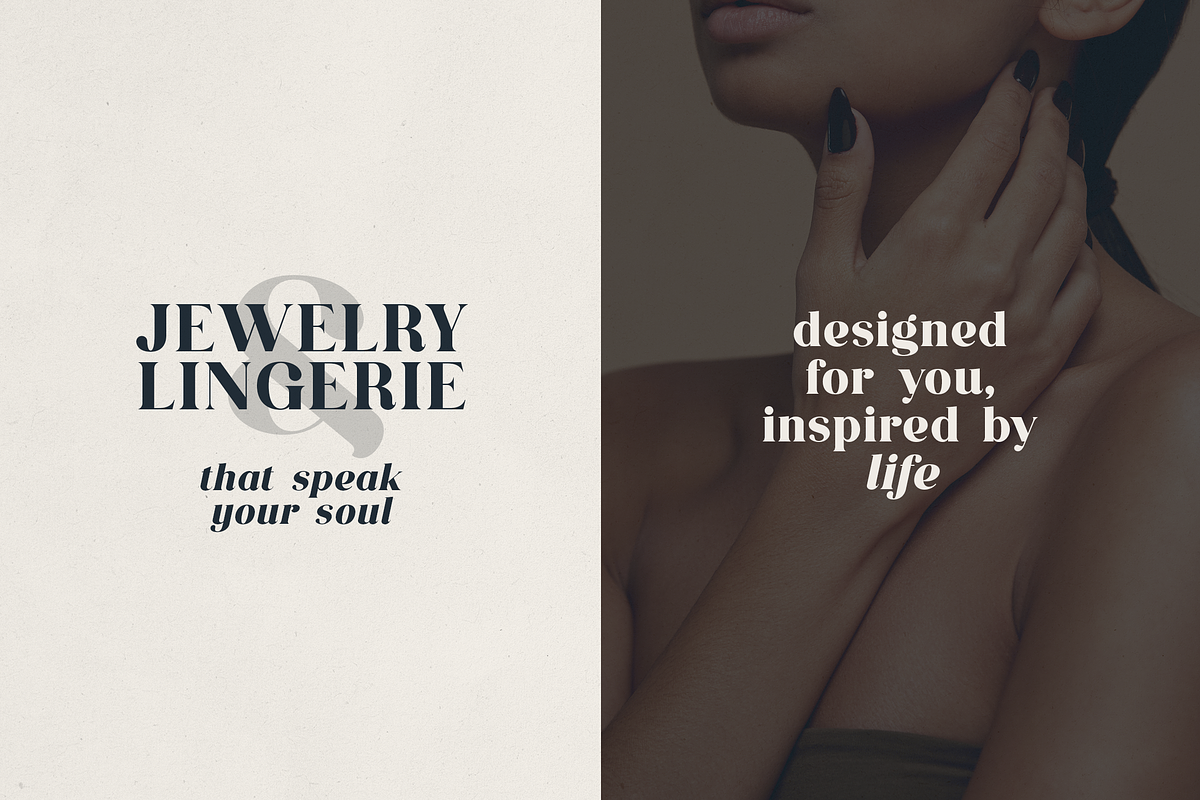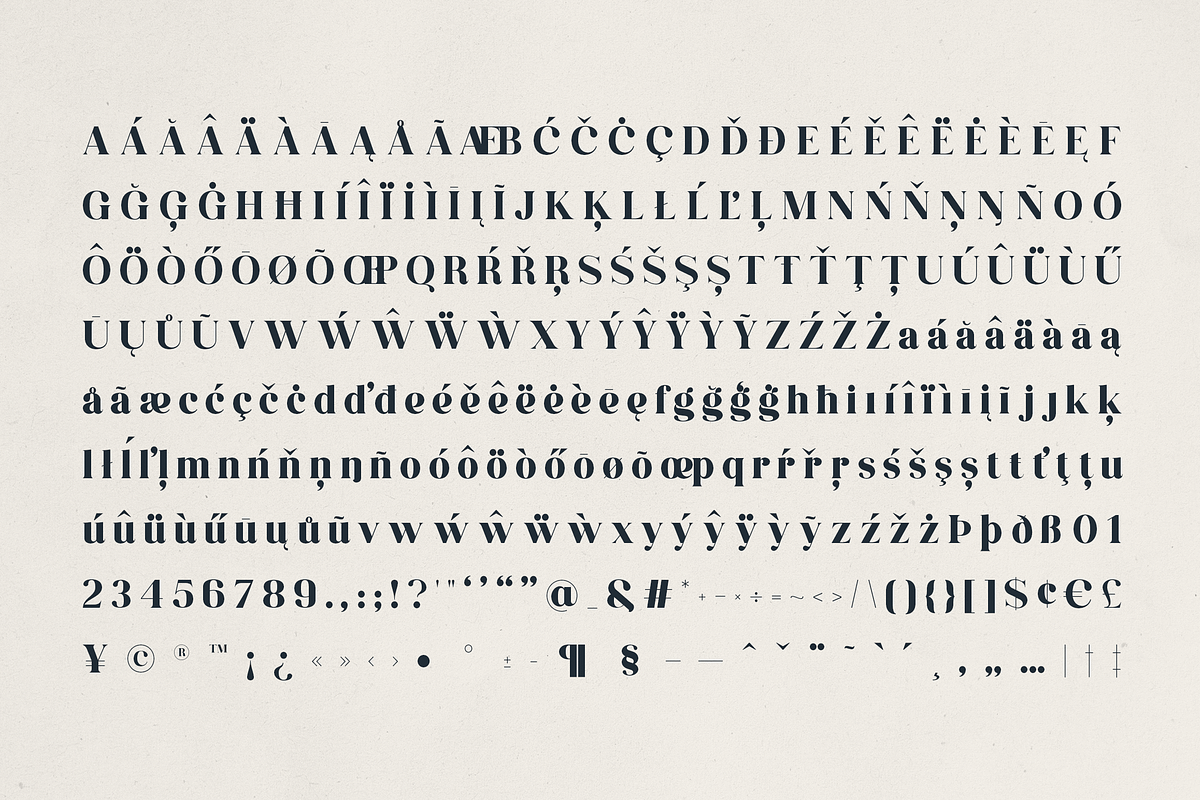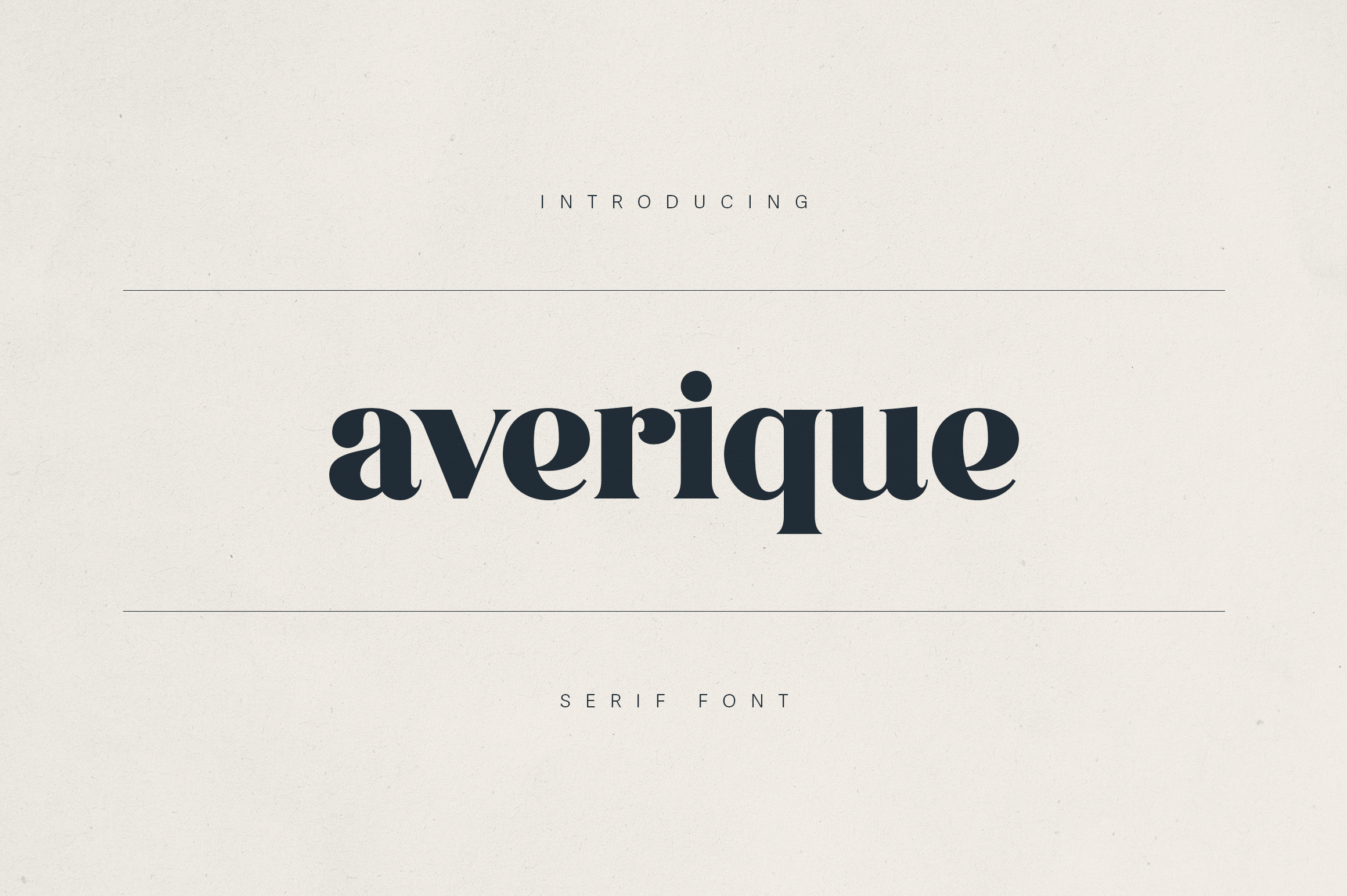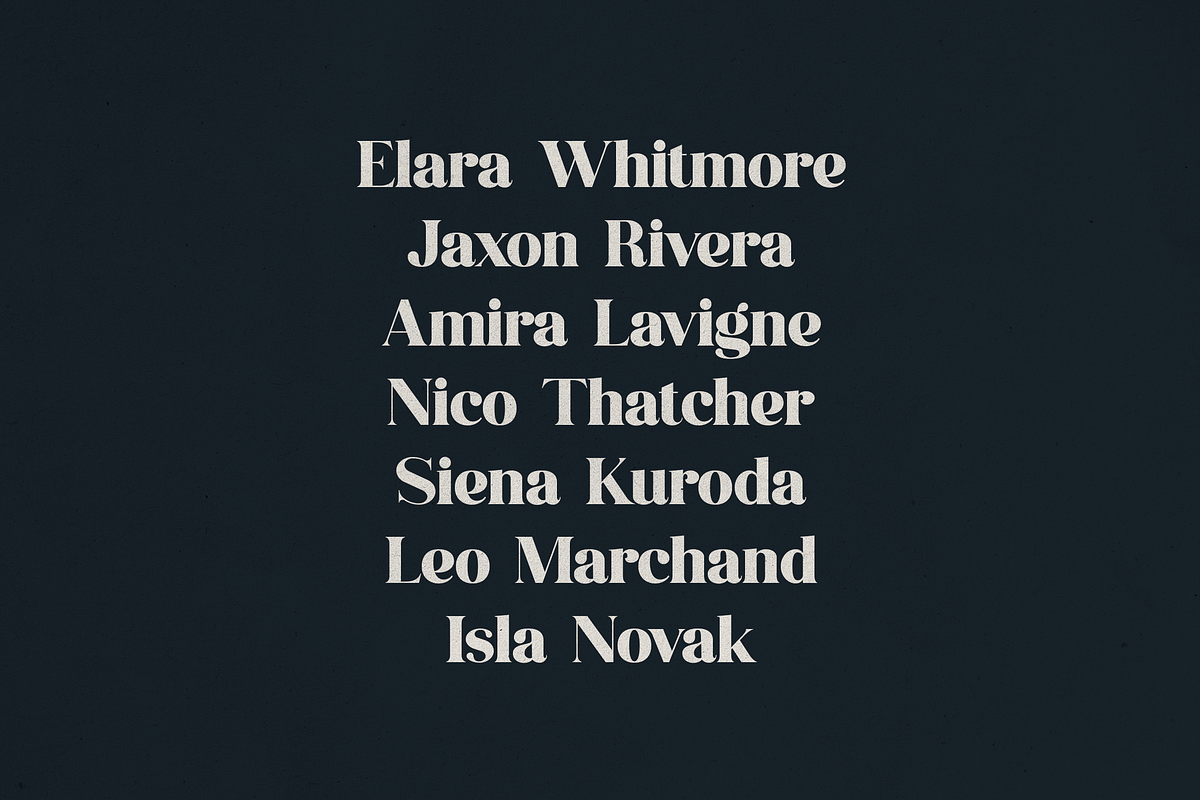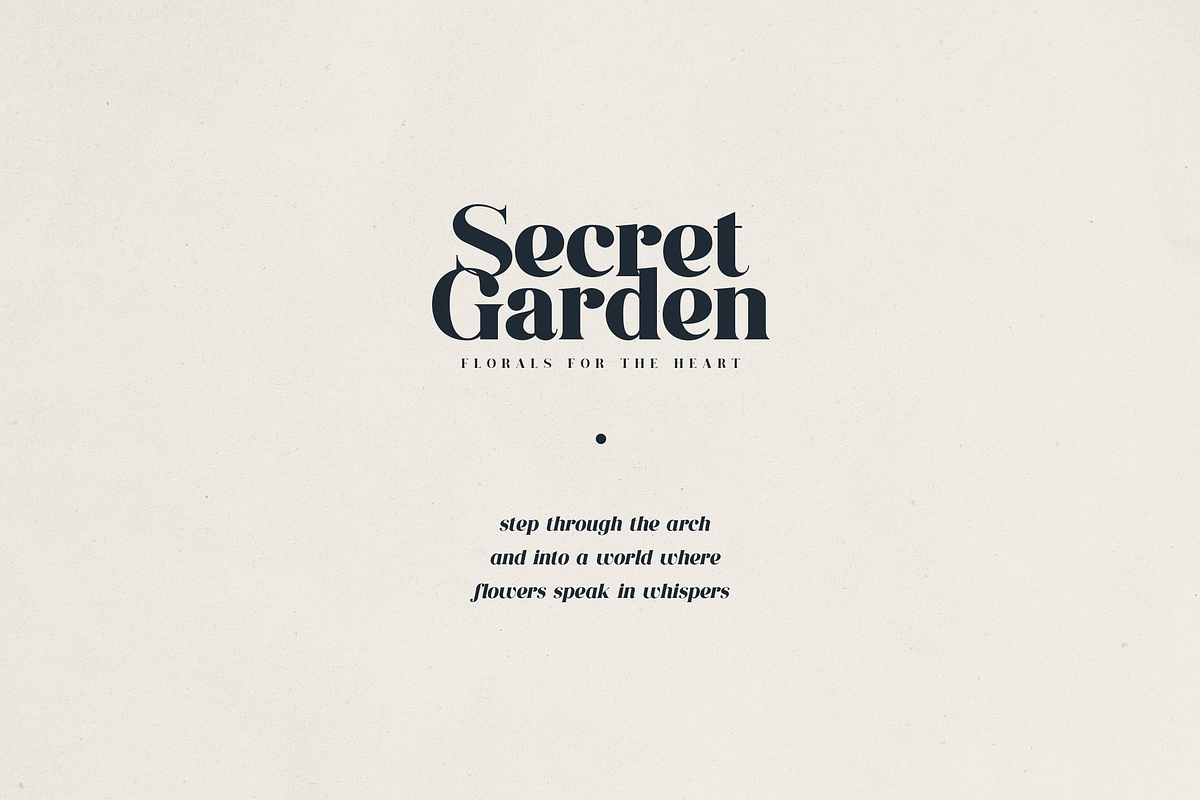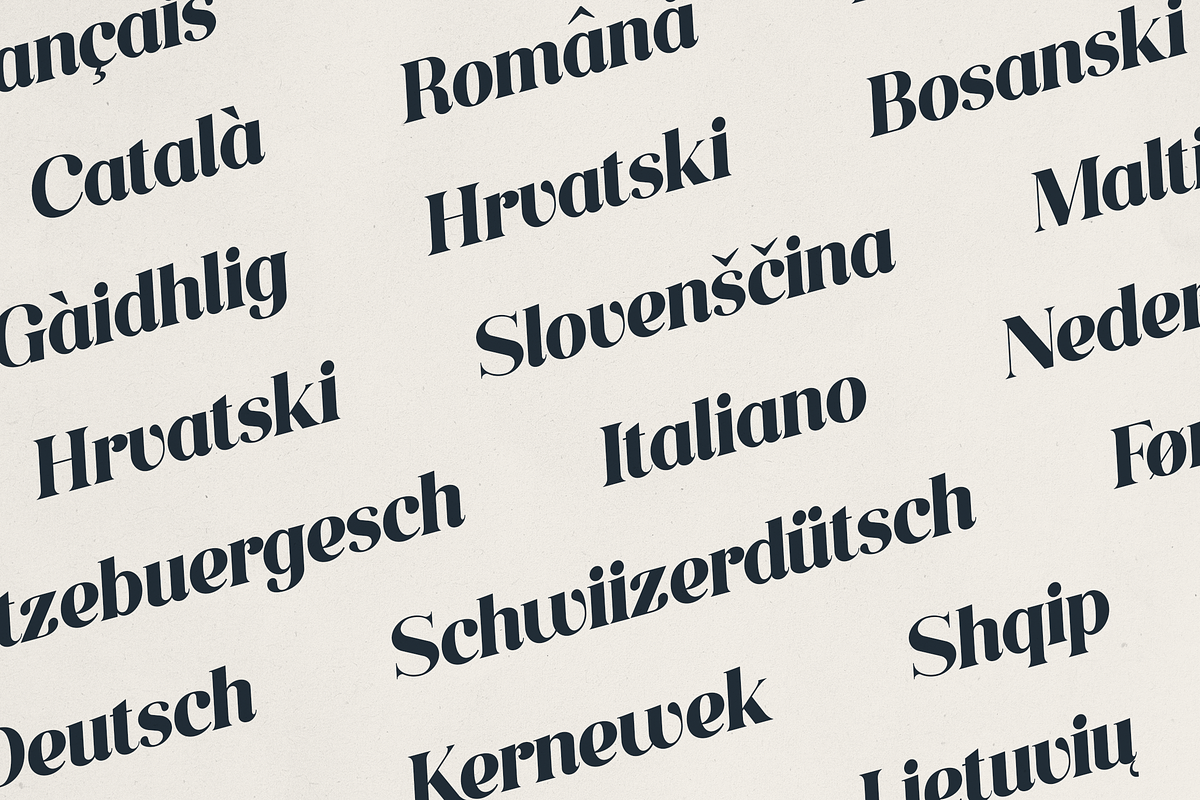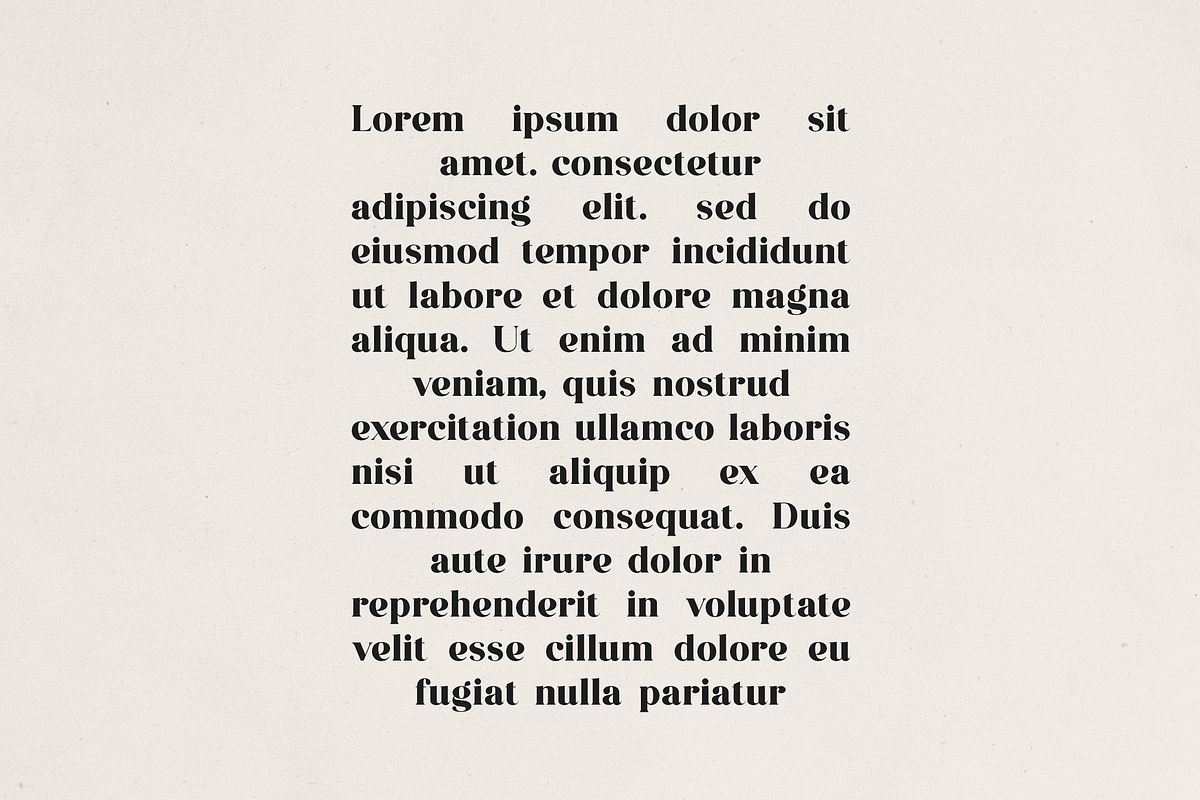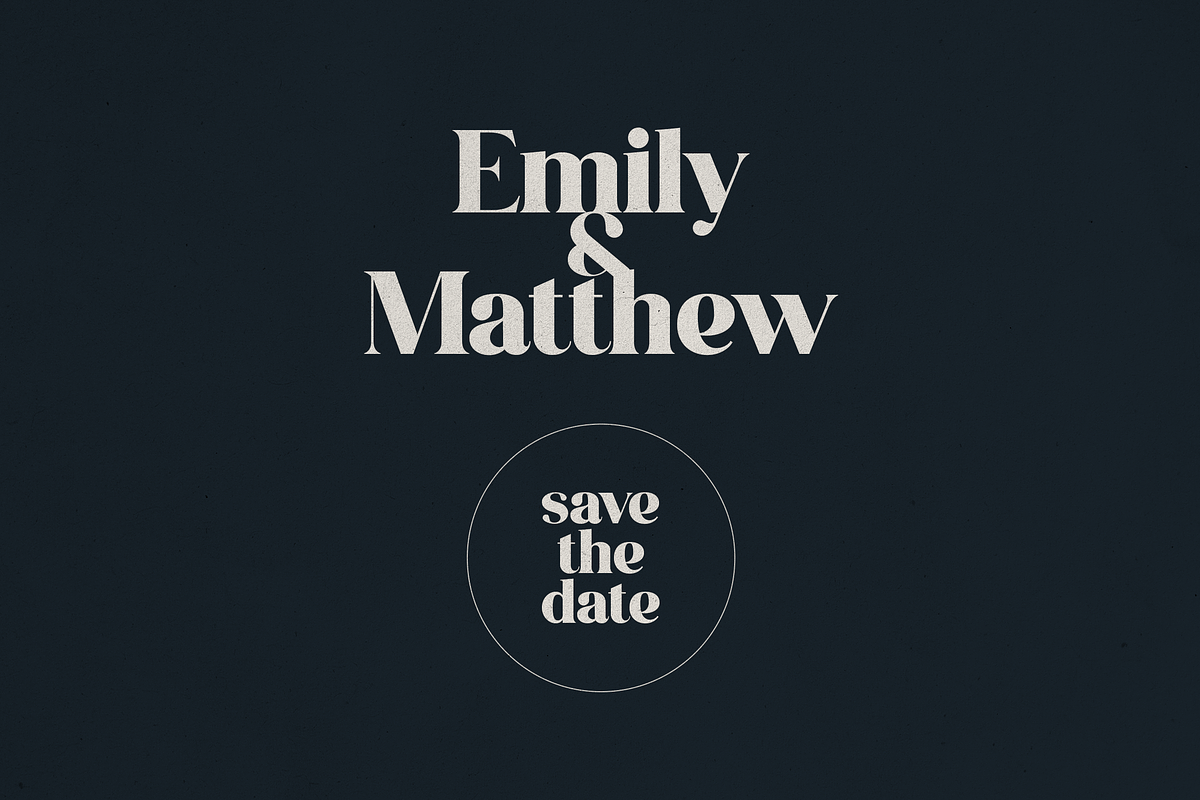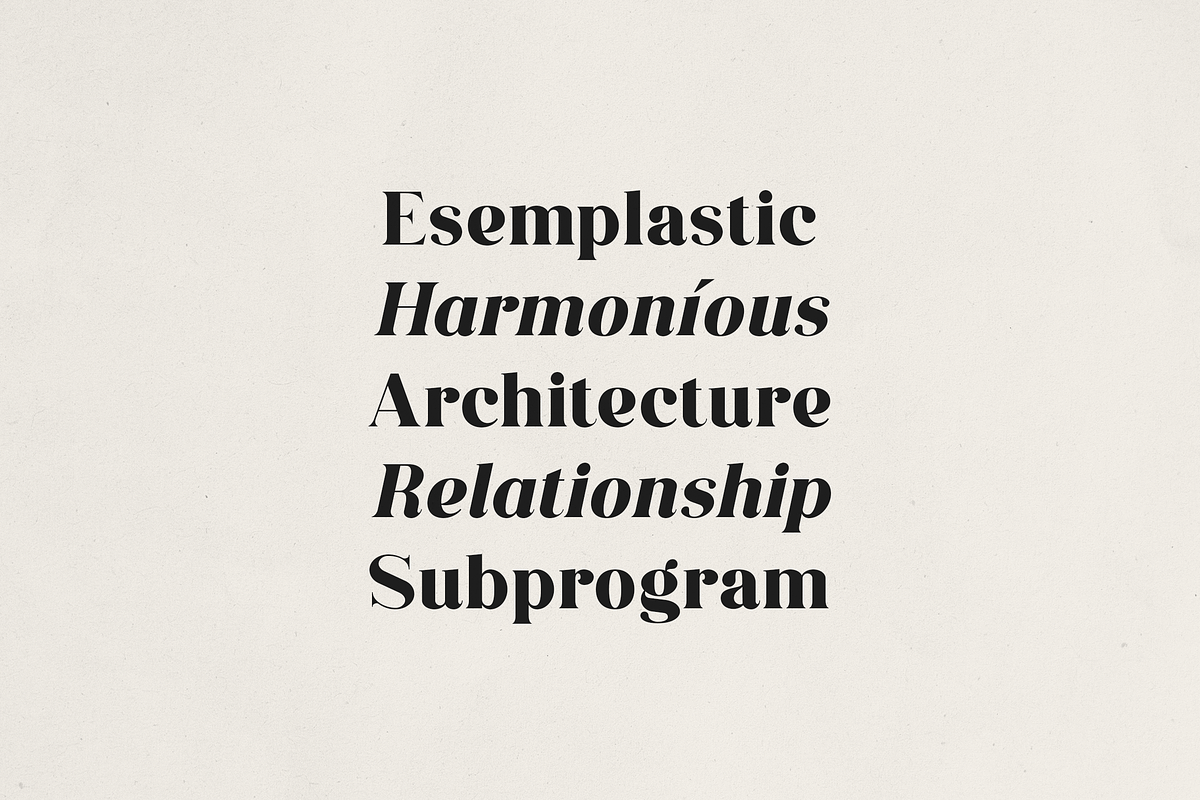
Averique – Elegant Modern Serif Font
Averique – Elegant Modern Serif Font for Timeless Branding
Averique is a refined and expressive serif font designed to bring sophistication and charm to your creative projects. With bold contrast, graceful curves, and distinct character shapes, Averique blends modern elegance with vintage flair—perfect for luxury branding, editorial design, packaging, wedding invitations, and more.
This versatile typeface offers beautifully crafted letterforms with a stylish and confident presence, making it ideal for headlines, logos, and display text. Whether you're creating a boutique brand identity or an enchanting magazine layout, Averique will help your work stand out with timeless style.
- High-contrast serif with elegant curves
- Great for logos, headlines, and branding
- Pairs beautifully with minimalist or script fonts
- Ideal for editorial, packaging, fashion, and creative storytelling
Make a bold and beautiful statement with Averique—a serif that speaks with sophistication and warmth.